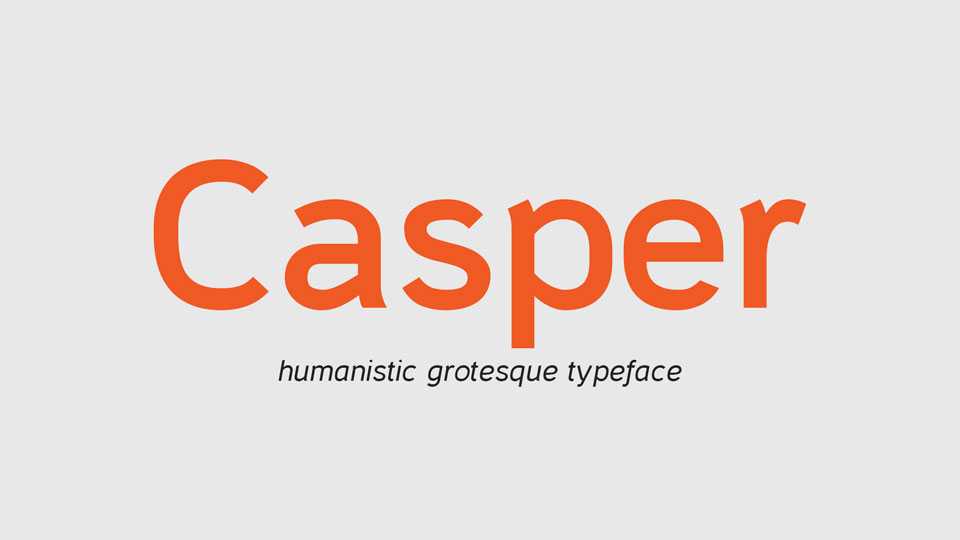
Download Casper typeface, a friendly, humanistic grotesque font family in four styles, primarily intended for headlines. Casper’s stylistic variants will help to diversify typographic design and give the text individuality and expressiveness.
Designer: Michael Chereda